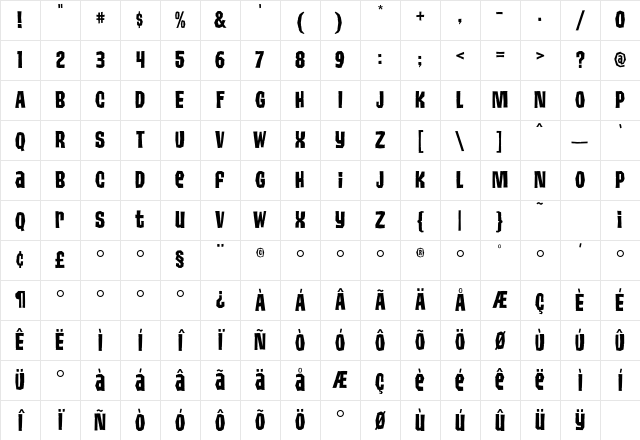
TikiIsland Regular Free Font
TikiIsland Regular
Design Context for TikiIsland
TikiIsland is a composed and adaptable typeface that performs quietly and consistently across a wide range of design contexts.